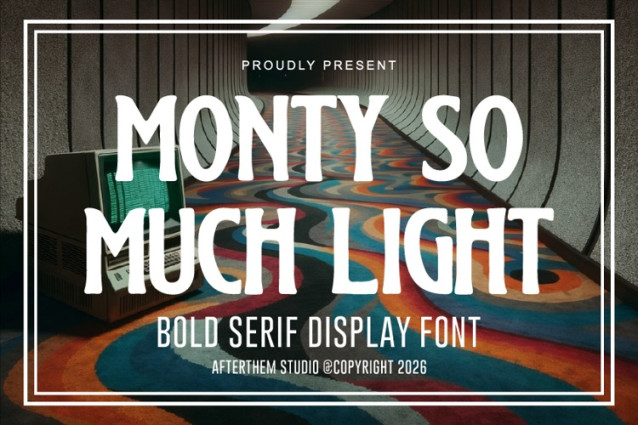
Monty So Much Light Font
Monty So Much Light Font is a simple and modern display font suitable for quotes, logos, headings, titles, and many more. Use it on any of your creative projects, and your designs will become outstanding!